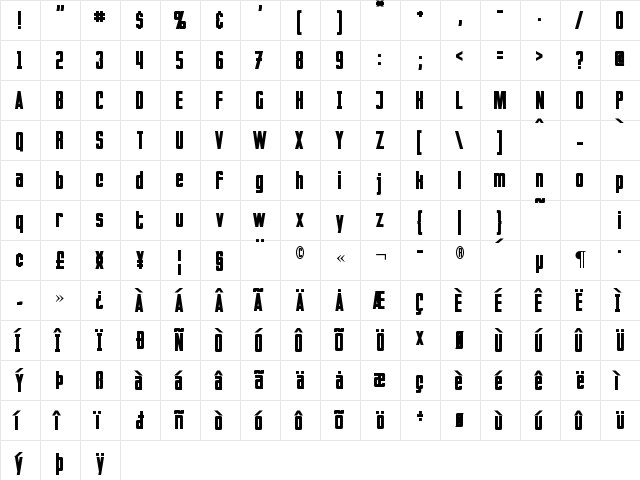
Invaders Regular
| Designer | Neale Davidson |
Design Context for Invaders Typeface
Invaders offers clean, dependable letterforms without strong stylistic allegiance, making it a practical choice for designers who need flexibility.